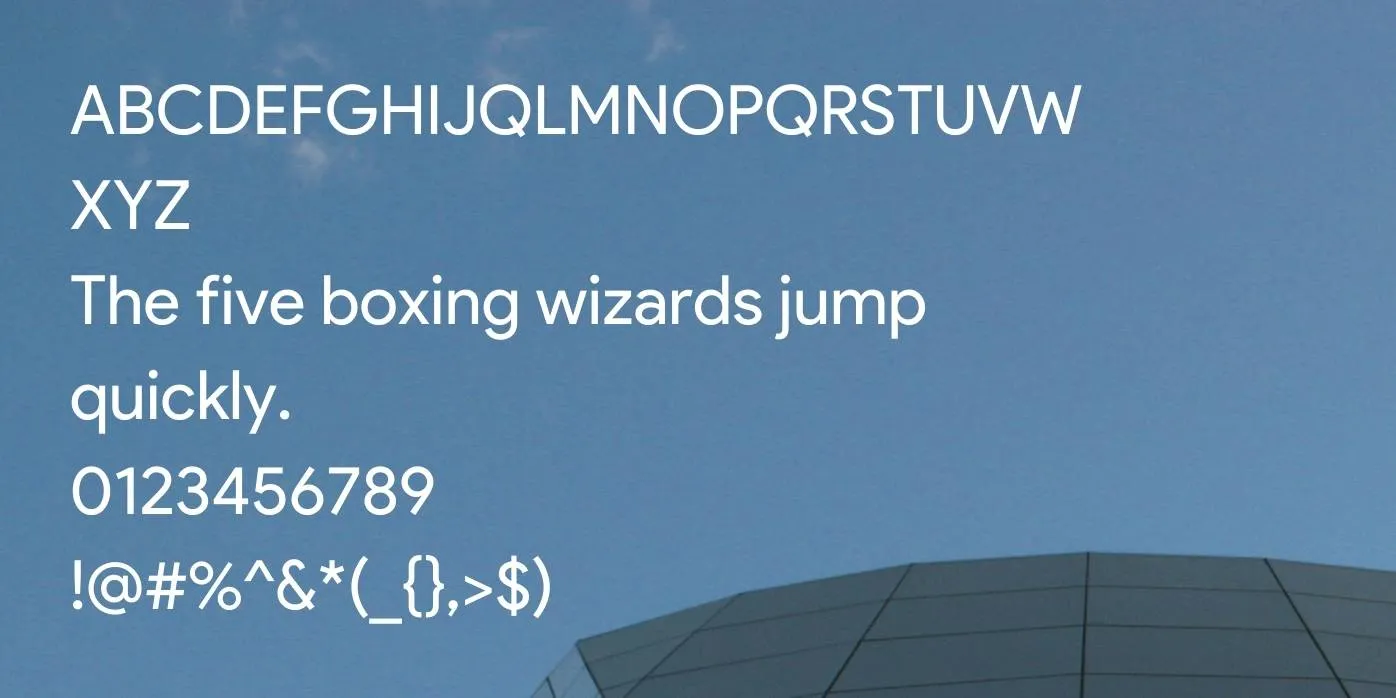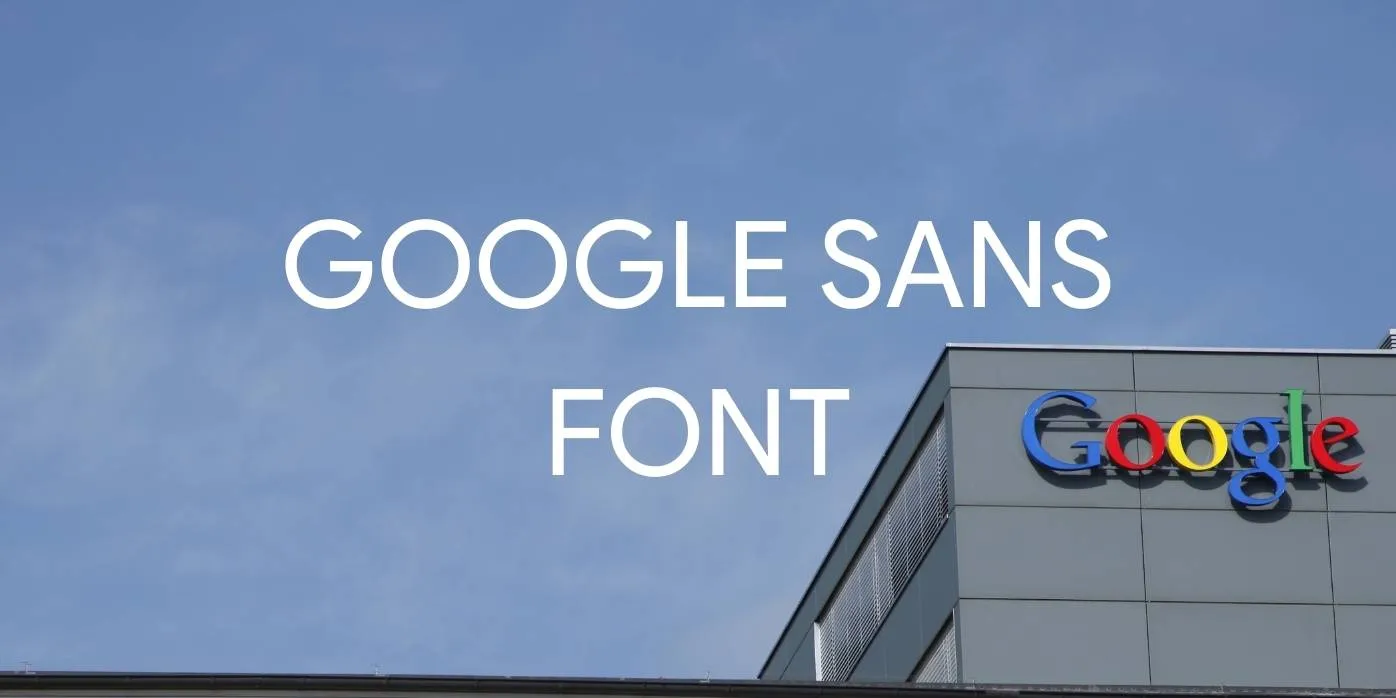
Google Sans Font
Google Sans typeface is the most legible font with humanist classification. It belongs to a Sans Serif typeface family and it is the best creation of Steve Matteson. The font has many styles and is free for personal use. The font has too much popularity because it is used in the Google Logo text.
You can say that this typeface is a universal typeface because it is applicable for any kind of situation or task as well. It’s sans serif characters are very legible for the users and viewers also. The font family has many styles consists Black, Black Italic, Bold Italic, Light, Italic, Light Italic, Medium, Medium Italic, Regular, Thin, Thin Italic. It all style has Uppercase and lowercase Letters, Symbols, Numbers, and Numerals also.